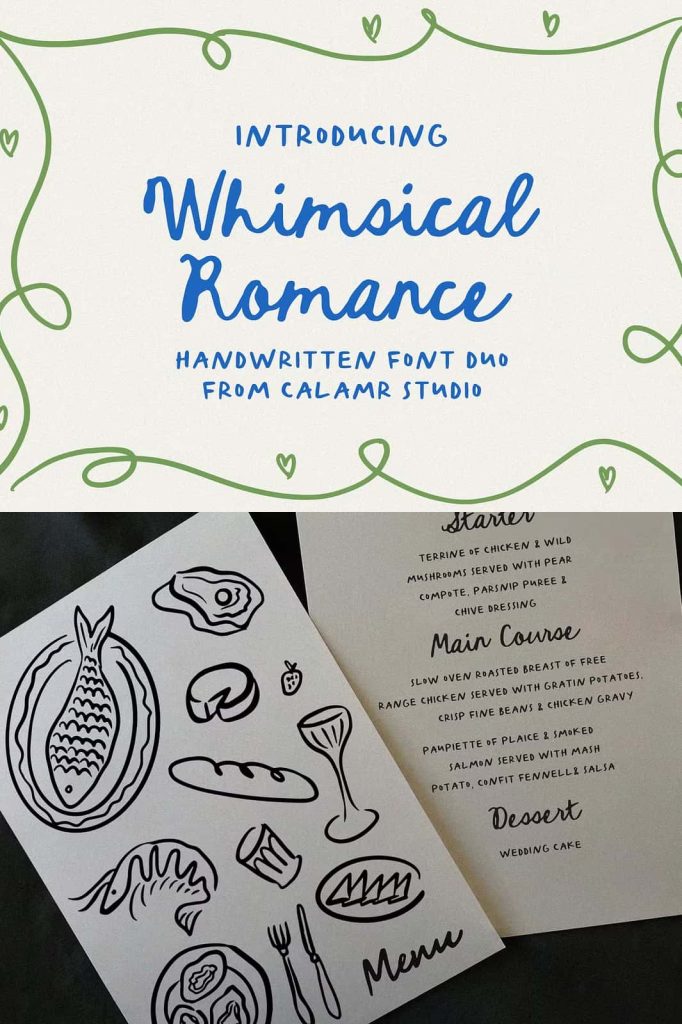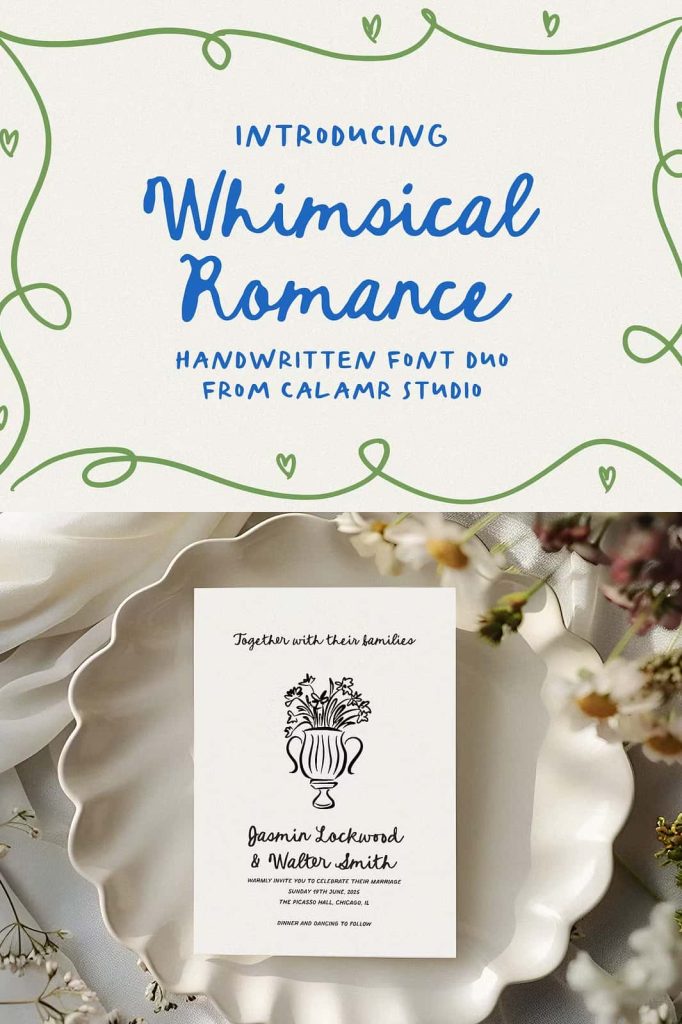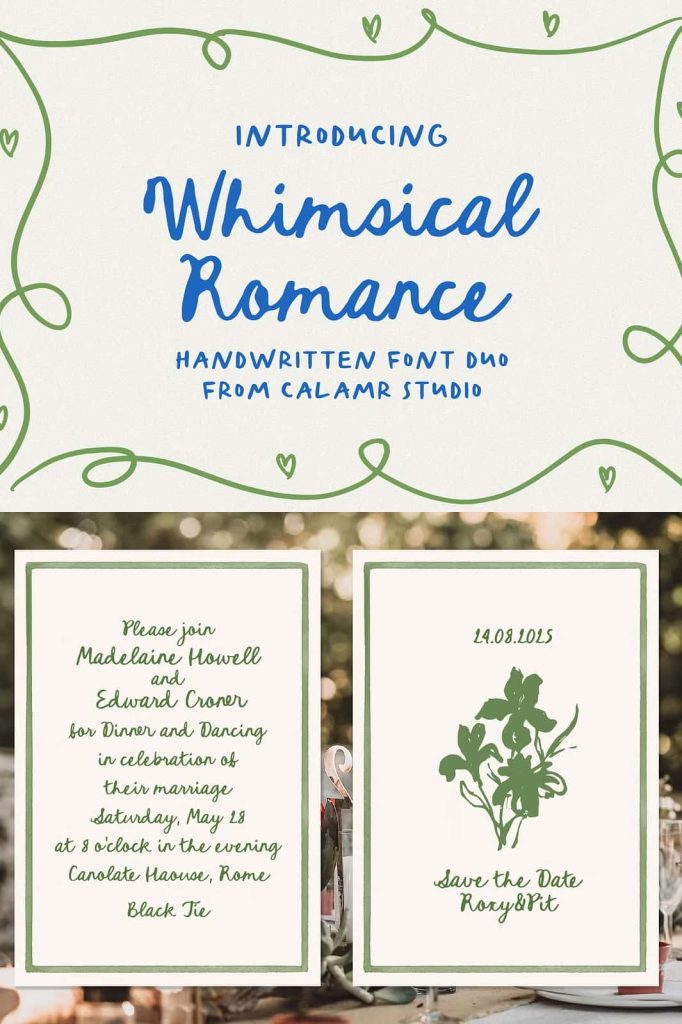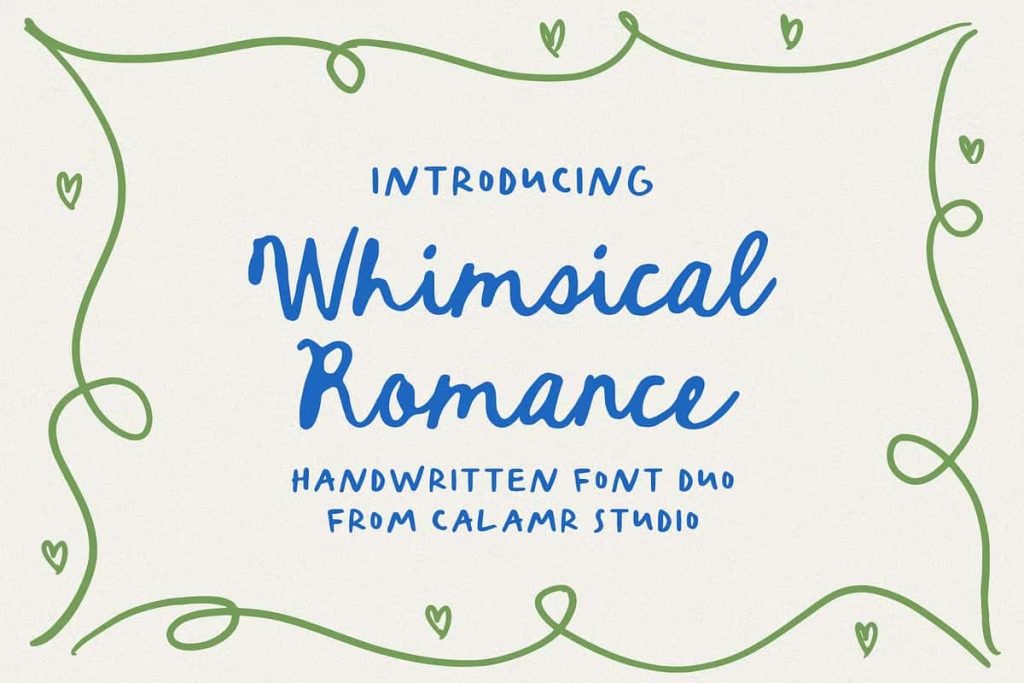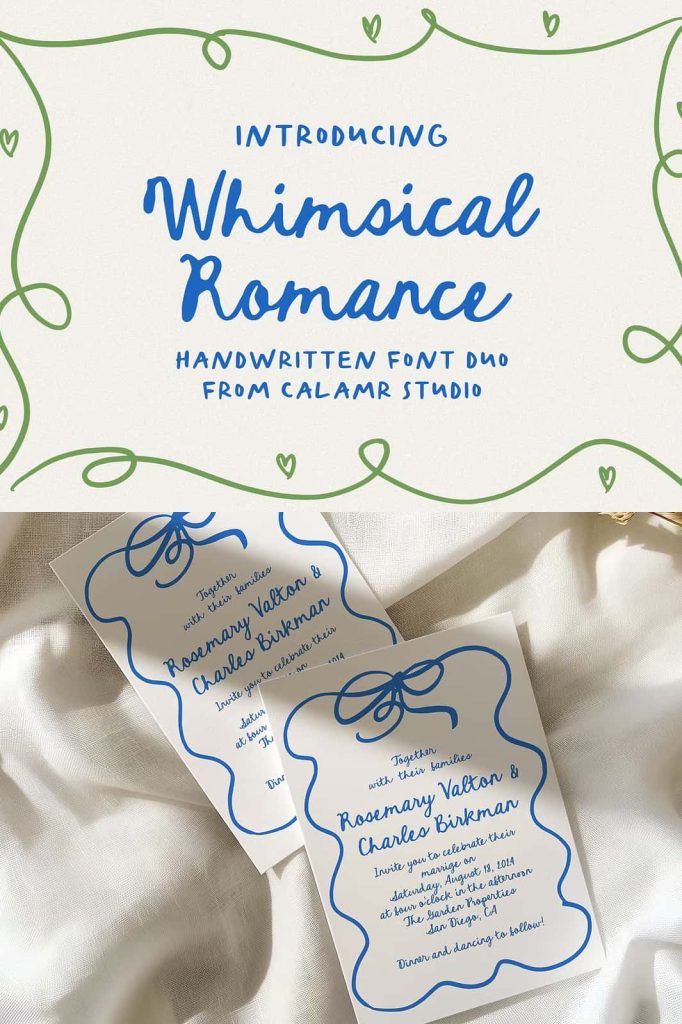
Whimsical Fonts – Natural Handwriting for Elegant and Creative Designs
Whimsical Fonts bring the beauty and authenticity of natural handwriting into your creative projects. With soft, flowing curves and expressive strokes, these fonts add a personal and artistic touch to every design. Perfectly balanced between elegance and playfulness, Whimsical Fonts transform ordinary text into something warm, relatable, and visually captivating. Whether you are designing a wedding invitation, restaurant menu, or social media post, this font style helps you communicate emotion, style, and creativity effortlessly.
The Beauty of Natural Handwriting
Handwriting has always been a powerful form of self-expression, and Whimsical Fonts perfectly capture that human touch. Each letterform mimics the fluid rhythm of real handwriting, giving your text an organic, natural flow. The delicate balance between imperfect curves and consistent strokes adds depth and character, making your designs feel genuine and heartfelt.
Unlike rigid digital typefaces, Whimsical Fonts breathe life into your work. They evoke the warmth of handwritten notes, the charm of calligraphy, and the intimacy of personal communication. These qualities make them ideal for projects that aim to connect emotionally with an audience—designs that need to feel both beautiful and human.
Perfect for Weddings, Events, and Lifestyle Branding
If you are planning a wedding, Whimsical Fonts are the perfect choice for invitations, seating charts, menus, and thank-you cards. Their graceful, handwritten style complements romantic and elegant themes, helping to set the mood even before the event begins. Each curve and loop adds an artistic flair that enhances the sense of celebration and love.
For event designers, lifestyle brands, and small business owners, these fonts are a versatile asset. They bring sophistication to brand logos, product packaging, and promotional materials. The soft, natural flow of each letter helps build a brand image that feels approachable, refined, and authentic. Whether your business is in fashion, food, wellness, or design, Whimsical Fonts can instantly elevate your visual identity.
Modern Appeal for Digital and Print Designs
In today’s visual world, design must resonate across platforms. Whimsical Fonts are crafted to perform beautifully in both digital and print environments. Their clear yet decorative shapes ensure that your message remains legible while still maintaining charm and personality. From Instagram posts and Pinterest graphics to printed menus and wall art, these fonts adapt seamlessly to every medium.
Modern audiences love authenticity and handcrafted aesthetics. By using Whimsical Fonts, you add an artisanal touch that feels personal and engaging. They are particularly effective for quotes, inspirational phrases, and branding visuals that rely on emotional connection. The effortless combination of style and readability makes them a timeless choice for designers who value both beauty and practicality.
Adding Elegance and Creativity to Every Project
Each design project tells a story, and Whimsical Fonts help you tell it with elegance. Their natural movement and flowing energy invite creativity and imagination. Whether paired with soft color palettes, minimalist layouts, or intricate floral illustrations, these fonts enhance the aesthetic appeal and emotional tone of your work. They add an element of personality that rigid sans-serifs or block letters simply cannot replicate.
The charm of Whimsical Fonts lies in their versatility. They can be graceful and romantic or modern and playful depending on how you style them. This flexibility allows you to use them across a range of creative fields, from editorial design and stationery to social media branding and home décor prints.
Why Choose Whimsical Fonts
- Authentic handwritten style with organic flow
- Perfect for weddings, events, and branding
- Adaptable for digital and print use
- Combines elegance with modern charm
- Creates emotional and visual impact effortlessly
Whimsical Fonts allow you to design with emotion and creativity. They make text feel personal, intimate, and alive. When used thoughtfully, they can transform a simple design into something unforgettable—a reflection of both artistry and sincerity.
Conclusion
Whimsical Fonts are more than just handwriting—they are expressions of creativity and emotion. Their natural, flowing lines add a human touch to every design, creating warmth and authenticity that digital perfection often lacks. From wedding invitations to Instagram quotes, these fonts adapt effortlessly to every style and purpose. Use Whimsical Fonts to infuse your projects with charm, personality, and timeless beauty. Every letter you create becomes an expression of artistry, connection, and heartfelt design.